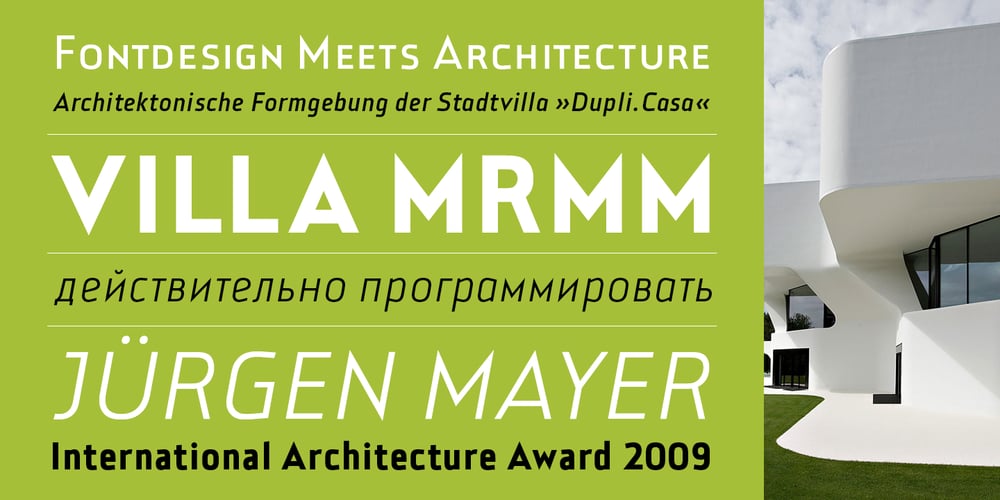
La Casa Font Family was designed by Michael Herold and published by URW Type Foundry. La Casa contains 14 styles and family package options. Font design meets architecture – the unique and architectural design of the urban villa “Dupli.Casa” by the architect J.Mayer.H triggered the inspiration for the typeface “La Casa”. Inclinations and curvatures mirror the linear, modern impression of the architecture. The overall impression of the sans serif accounts for the great readability, even in lower point sizes – perfect for the design of books and magazines. The fresh and modern appearance of the font is particularly suitable for corporate designs of enterprises. The seven-font weights support more than 100 languages and the Cyrillic characters ensure a versatile and international use. The low contrast, the reduction of the corner points and the clear nature of the font make “La Casa” perfectly applicable as a web font.